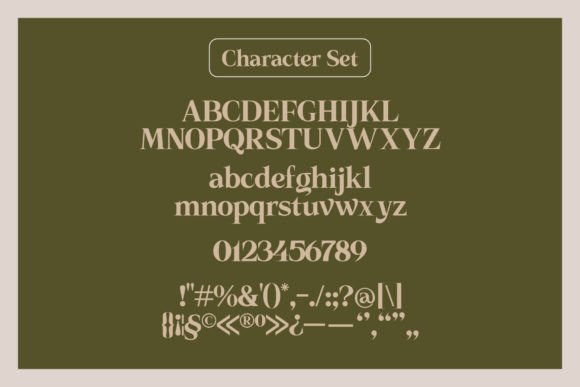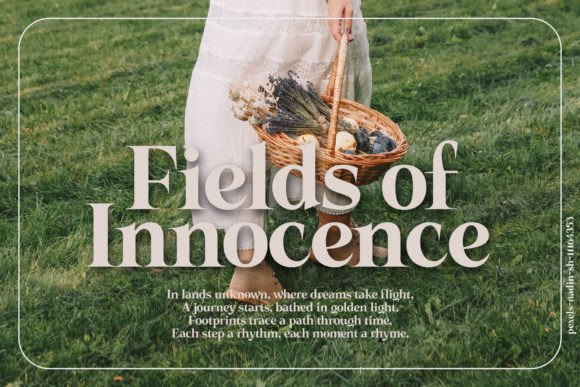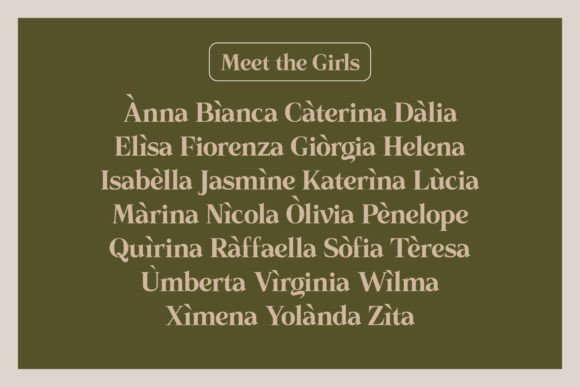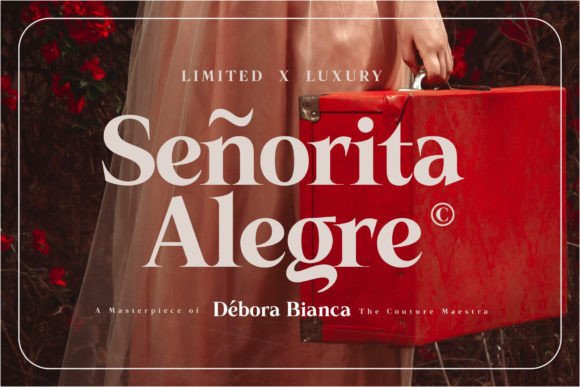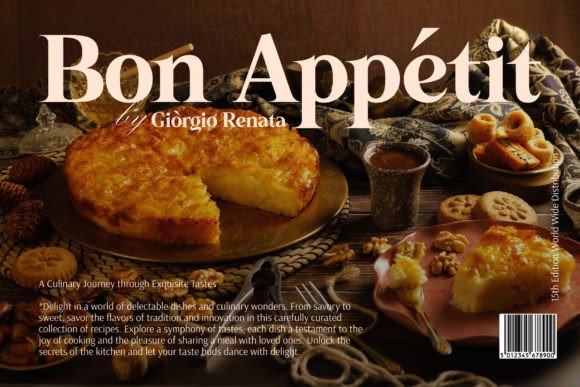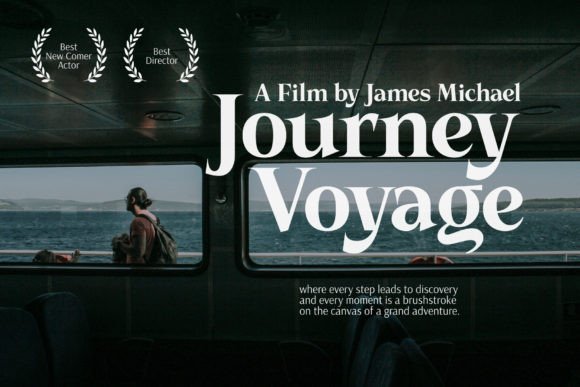
Introducing Hawthorne Vintage Serif: Timeless Elegance for Your Design Projects
In the world of typography, few fonts manage to capture the essence of timeless elegance and nostalgia as effectively as Hawthorne Vintage Serif. This exquisite font is a masterful blend of vintage charm and modern sophistication, making it an ideal choice for designers and crafters seeking to add a touch of refinement to their projects.
The Inspiration Behind Hawthorne Vintage Serif
Hawthorne Vintage Serif draws inspiration from the classic serifs of the past, evoking memories of traditional printing and elegant handwritten scripts. Its design is rooted in the rich history of typography, where serifs were used to add character and personality to printed materials. The font’s creator aimed to revive this classic aesthetic while infusing it with a modern twist, making it suitable for a wide range of applications.
Key Features of Hawthorne Vintage Serif
So, what sets Hawthorne Vintage Serif apart from other fonts? Here are some of its key features:
- Graceful Curves: Hawthorne Vintage Serif boasts elegant, flowing curves that give it a distinctive and sophisticated look. These curves add a touch of warmth and approachability to the font, making it perfect for designs that require a personal touch.
- Meticulously Crafted Details: Every detail in Hawthorne Vintage Serif has been carefully crafted to ensure that the font exudes quality and refinement. From the subtle serifs to the precise letter spacing, every element has been designed to contribute to the font’s overall aesthetic.
- Subtle Serifs: The serifs in Hawthorne Vintage Serif are subtle yet distinctive, adding a touch of classic elegance to the font. These serifs help to create a sense of continuity and flow, making the font ideal for body text and headings.
Why Choose Hawthorne Vintage Serif?
With so many fonts available, why should you choose Hawthorne Vintage Serif for your design projects? Here are a few compelling reasons:
- Timeless Appeal: Hawthorne Vintage Serif has a timeless quality that ensures it will remain relevant for years to come. Its classic design means it won’t go out of style, making it a valuable addition to your font collection.
- Versatility: This font is incredibly versatile, suitable for a wide range of applications, from branding and advertising to packaging and editorial design.
- Elegance and Sophistication: Hawthorne Vintage Serif adds a touch of elegance and sophistication to any design project. Its refined aesthetic makes it perfect for designs that require a high level of professionalism and polish.
Using Hawthorne Vintage Serif in Your Design Projects
So, how can you incorporate Hawthorne Vintage Serif into your design projects? Here are a few ideas to get you started:
- Branding and Logo Design: Use Hawthorne Vintage Serif to create elegant and sophisticated brand identities that stand out from the crowd.
- Editorial Design: This font is perfect for editorial design projects, such as magazines, newspapers, and books, where a touch of classic elegance is desired.
- Packaging Design: Add a touch of refinement to your packaging designs with Hawthorne Vintage Serif, ideal for luxury brands and high-end products.
In conclusion, Hawthorne Vintage Serif is a font that embodies timeless elegance and sophistication. Its unique blend of vintage charm and modern refinement makes it an excellent choice for designers and crafters seeking to elevate their design projects. With its graceful curves, meticulously crafted details, and subtle serifs, this font is sure to add a touch of refinement to any design. Add Hawthorne Vintage Serif to your collection today and let its exquisite craftsmanship tell your story.
Hawthorne Vintage Serif is more than just a font – it’s a design statement. It’s a way to add a touch of timeless elegance and sophistication to your projects, setting them apart from the ordinary. Whether you’re a designer, crafter, or simply someone who appreciates beautiful typography, Hawthorne Vintage Serif is an excellent choice for anyone seeking to elevate their design game.